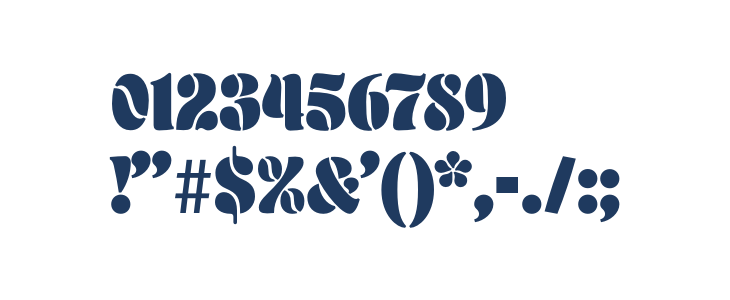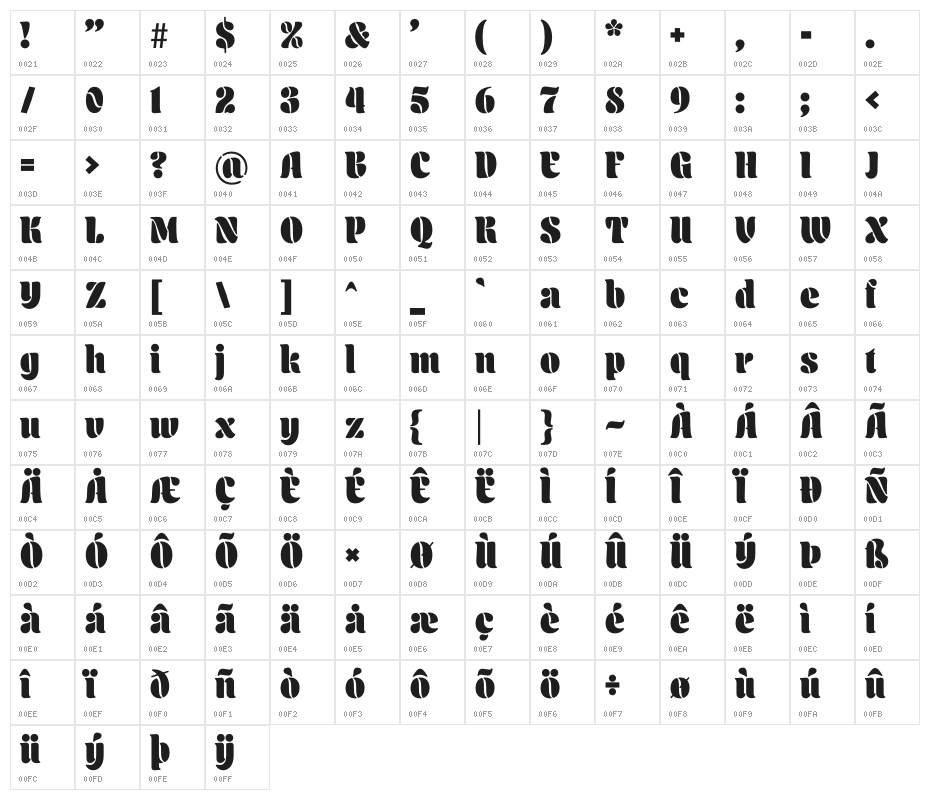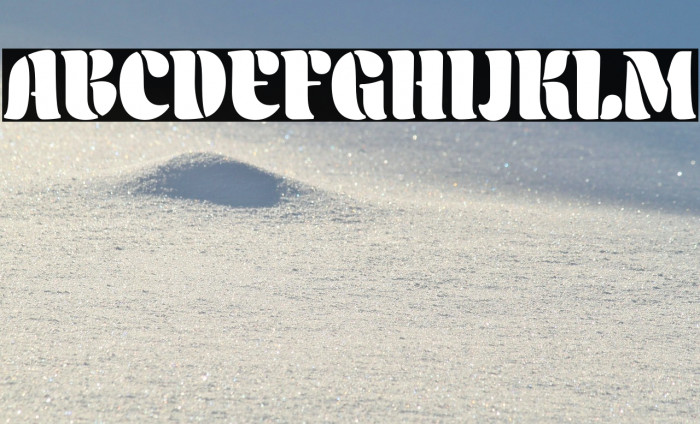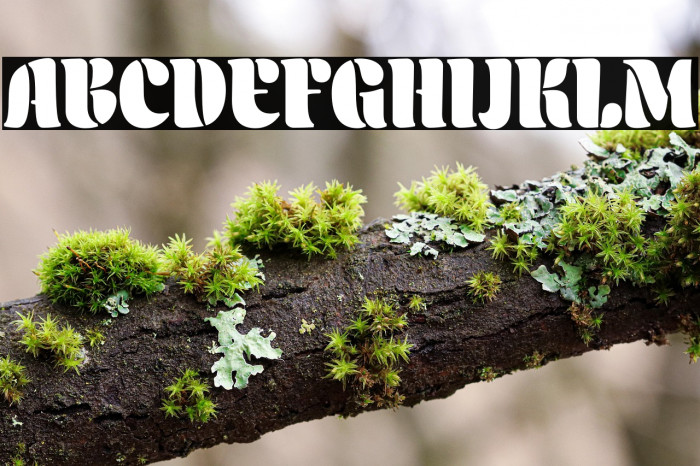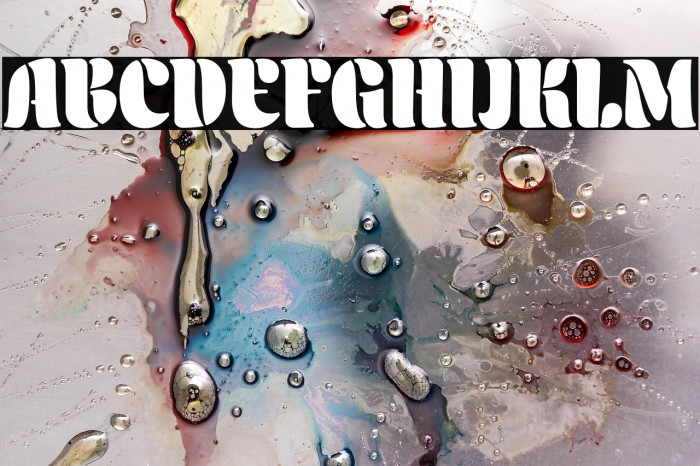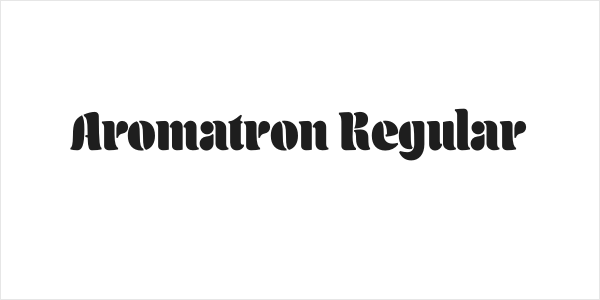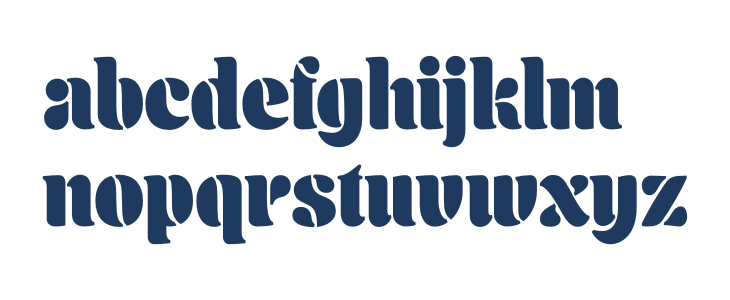
Aromatron Regular Font
Aromatron Regular Description
This font features a bold and striking design with thick, rounded strokes that create a strong visual impact. The characters are crafted with a unique blend of modern and vintage styles, characterized by their boldness and distinct curves. The uppercase and lowercase letters maintain a consistent weight, providing a harmonious appearance across the alphabet. The numerals and special characters follow the same design principles, ensuring uniformity throughout. This font's bold and decorative nature makes it ideal for projects that require a strong and memorable typographic presence.
| Overall Style | Modern, Vintage |
| Proposed Projects | Ideal for branding, poster design, headlines, and any project requiring a bold typographic statement. |